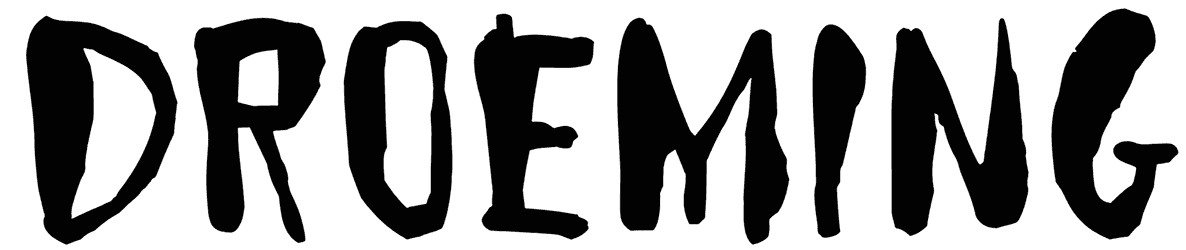
Droeming Font
If creating a sense of dread, eeriness, fear, or vivacity is your priority in the realm of designing eye-grabbing posters, billboards, stickers, magazines, or product packaging, then Droeming deserves to be on your radar.
It’s the font that inspired a story. Or is it the story that inspired a font? Droeming is a simple experiment in scrawl font technique. Drawn by hand with a very small brush and a few drams of India ink, the scanned and vectored results deliver intriguing thicks and thins with curious blobbings that create interest and variation. After some heavy kerning of 7,000 plus pairs–and some heavy writing of 26,000 or so words–the font and the story it inspired are finally done. But didn’t I just hint that it’s not clear which inspired which? Check out the droeming specimen in my gallery and see if you can guess the answer. And then ask yourself, can you survive the droem? It would be a syn if you couldn’t.